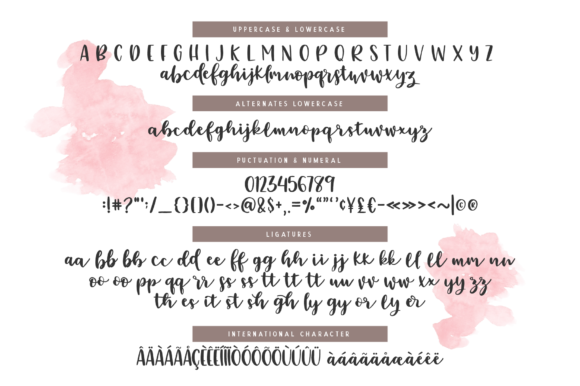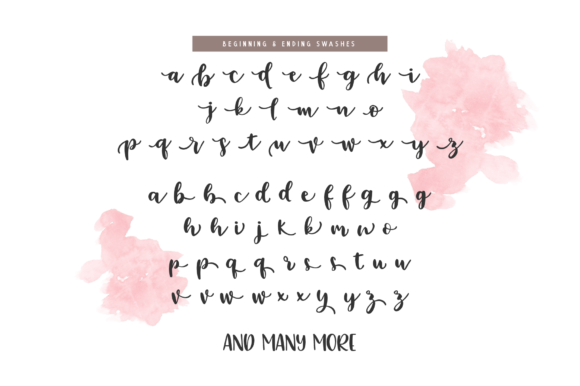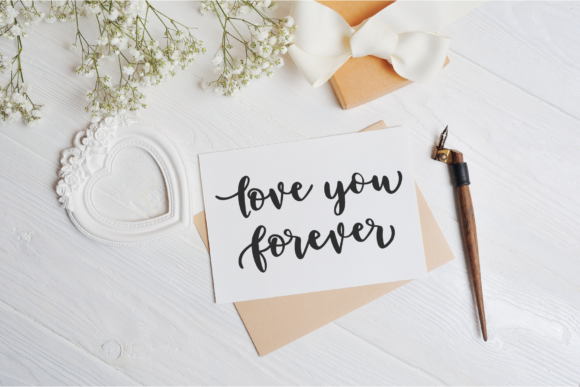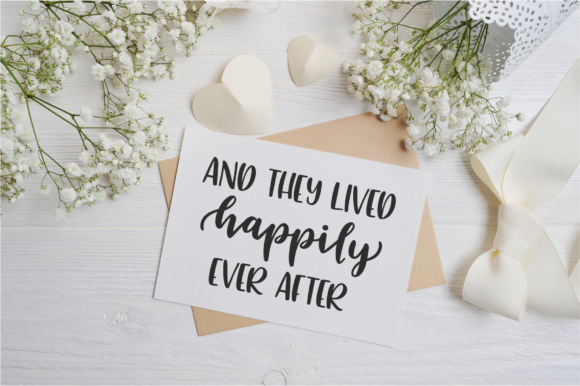
Introducing Emylia Script Font: The Epitome of Elegance and Femininity
The Emylia Script font is a stunning handwritten typeface that exudes a sense of elegance and sophistication. Its feminine feel makes it an ideal choice for designers and crafters looking to add a touch of refinement to their projects. In this article, we’ll delve into the world of Emylia Script, exploring its features, uses, and benefits, as well as provide tips on how to make the most of this beautiful font.
A Beautiful Handwritten Font
The Emylia Script font is a meticulously crafted handwritten typeface that boasts a unique and charming character. Its flowing lines, delicate curves, and subtle imperfections evoke a sense of human touch, making it perfect for designs that require a personal and intimate feel. Whether you’re working on a branding project, a wedding invitation, or a packaging design, Emylia Script is sure to add a touch of warmth and personality to your work.
Feminine Feel and Elegant Touch
One of the standout features of Emylia Script is its distinctly feminine feel. The font’s gentle curves, swooping lines, and refined aesthetic make it an excellent choice for designs that require a touch of elegance and sophistication. Whether you’re creating a luxury brand identity, a high-end product label, or a stylish blog, Emylia Script is sure to bring a level of refinement and poise to your project.
The versatility of Emylia Script font makes it suitable for a wide range of design projects. Here are some examples of how you can use this beautiful font:
- Branding and Logo Design: Emylia Script is perfect for creating elegant and sophisticated brand identities, logos, and letterheads.
- Wedding and Event Invitations: The font’s romantic and whimsical feel makes it ideal for designing beautiful wedding invitations, save-the-date cards, and event posters.
- Packaging Design: Emylia Script can add a touch of luxury and sophistication to product packaging, labels, and tags.
- Blog and Website Design: The font’s elegant and refined aesthetic makes it perfect for designing stylish blogs, websites, and social media graphics.
Tips for Using Emylia Script Font
To get the most out of Emylia Script font, here are some tips to keep in mind:
- Pair with Neutral Fonts: Pair Emylia Script with neutral fonts, such as sans-serif or serif fonts, to create a beautiful contrast and add visual interest to your design.
- Use for Headings and Titles: Emylia Script is perfect for headings, titles, and subtitles, where its elegant and refined aesthetic can shine.
- Experiment with Colors: Try pairing Emylia Script with different colors, such as pastels, metallics, or rich jewel tones, to add depth and visual interest to your design.
In conclusion, Emylia Script font is a stunning handwritten typeface that offers a unique blend of elegance, sophistication, and femininity. Its versatility and charm make it perfect for a wide range of design projects, from branding and packaging to wedding invitations and blog design. By following the tips outlined in this article, you can unlock the full potential of Emylia Script and add a touch of refinement and poise to your designs.
Get Creative with Emylia Script Font